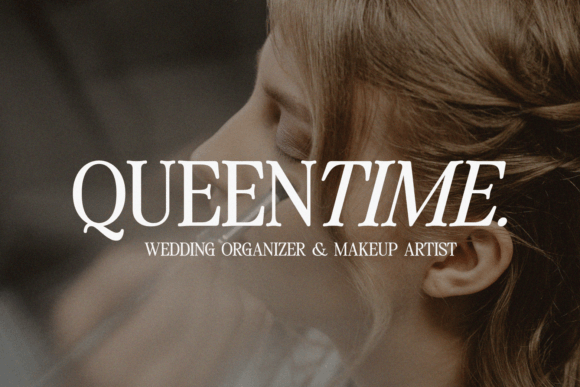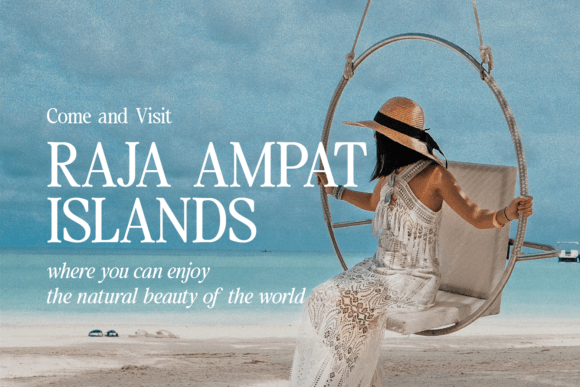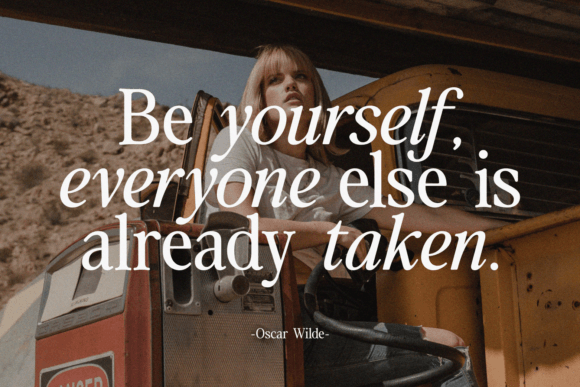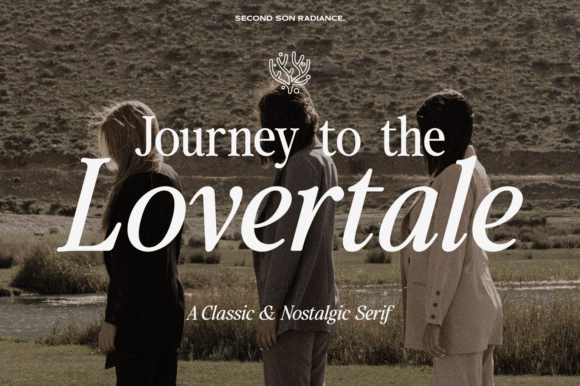
Introduction to Lovertale Font
Lovertale is a classic and elegant retro serif with a modern twist.
With its decent readability, suitable for both displays as well as body text It is perfect for your upcoming projects, such as luxury logo and branding, classy editorial design, woman’s magazines, cosmetic brands, fashion promotional, art gallery branding, art quote, home decor, book/cover title, special events, and many more.